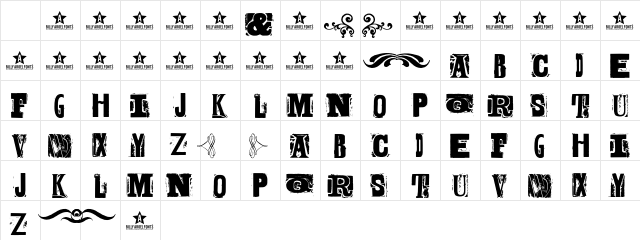
Complete BODY HUNTER Bold glyph index. Displaying only characters natively supported by BODY HUNTER Bold font.
BODY HUNTER is a composed and adaptable typeface that performs quietly and consistently across a wide range of design contexts. Its bold stroke weight gives it real presence on the page.